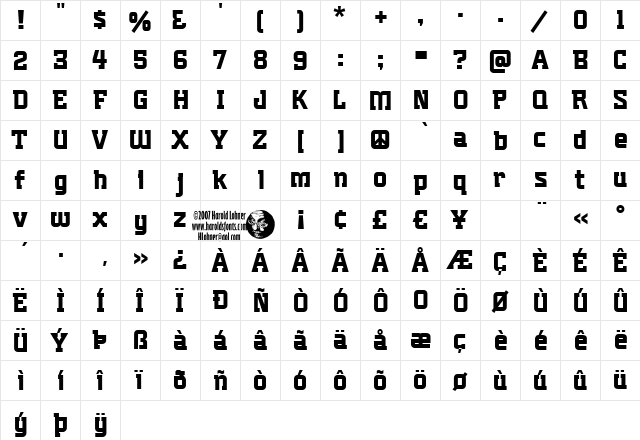
Plumber's Gothic Regular
Design Context for Plumber's Gothic Typeface
Plumber's Gothic takes a clean, functional approach — its unadorned letterforms prioritise legibility and work reliably across screen and print environments.